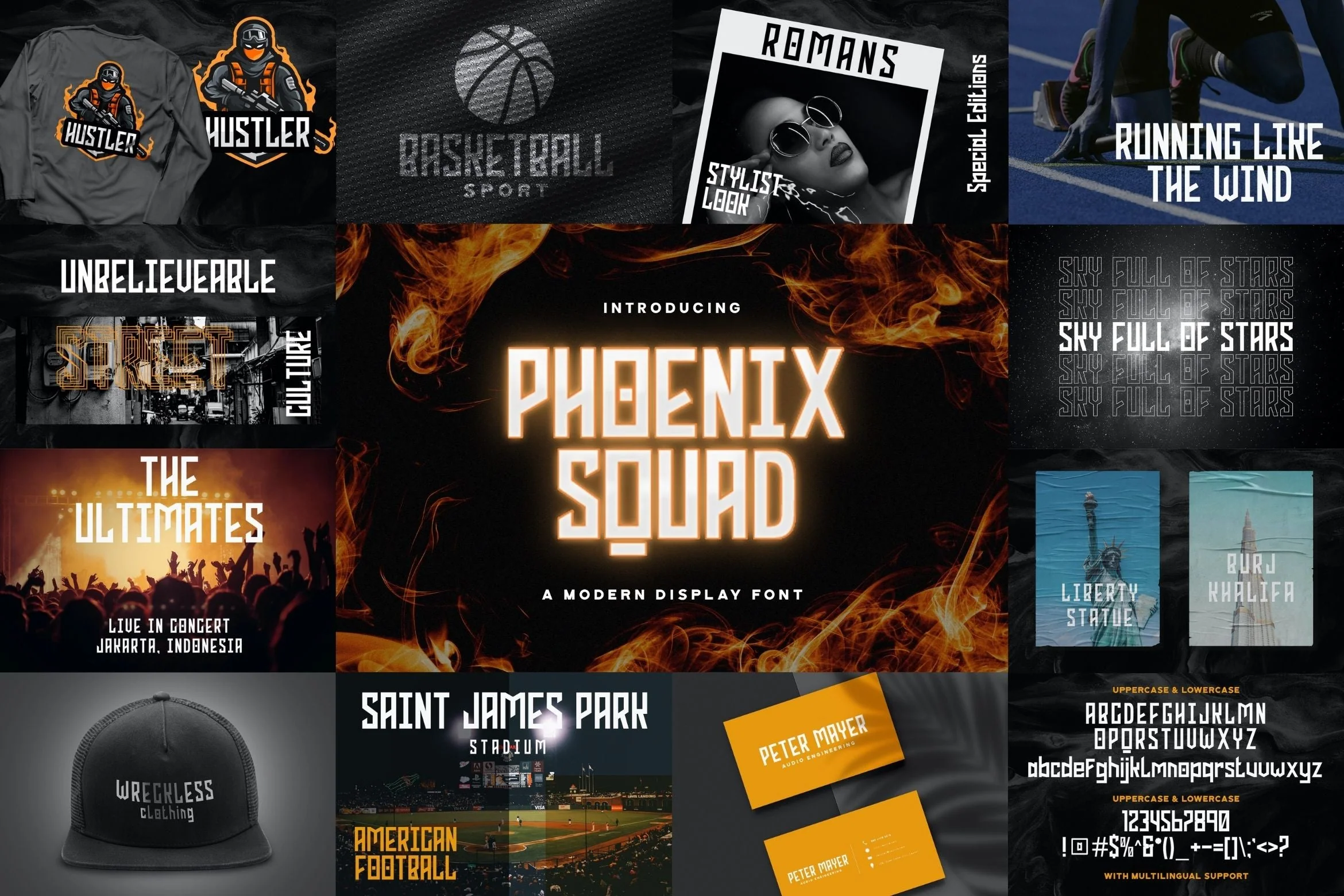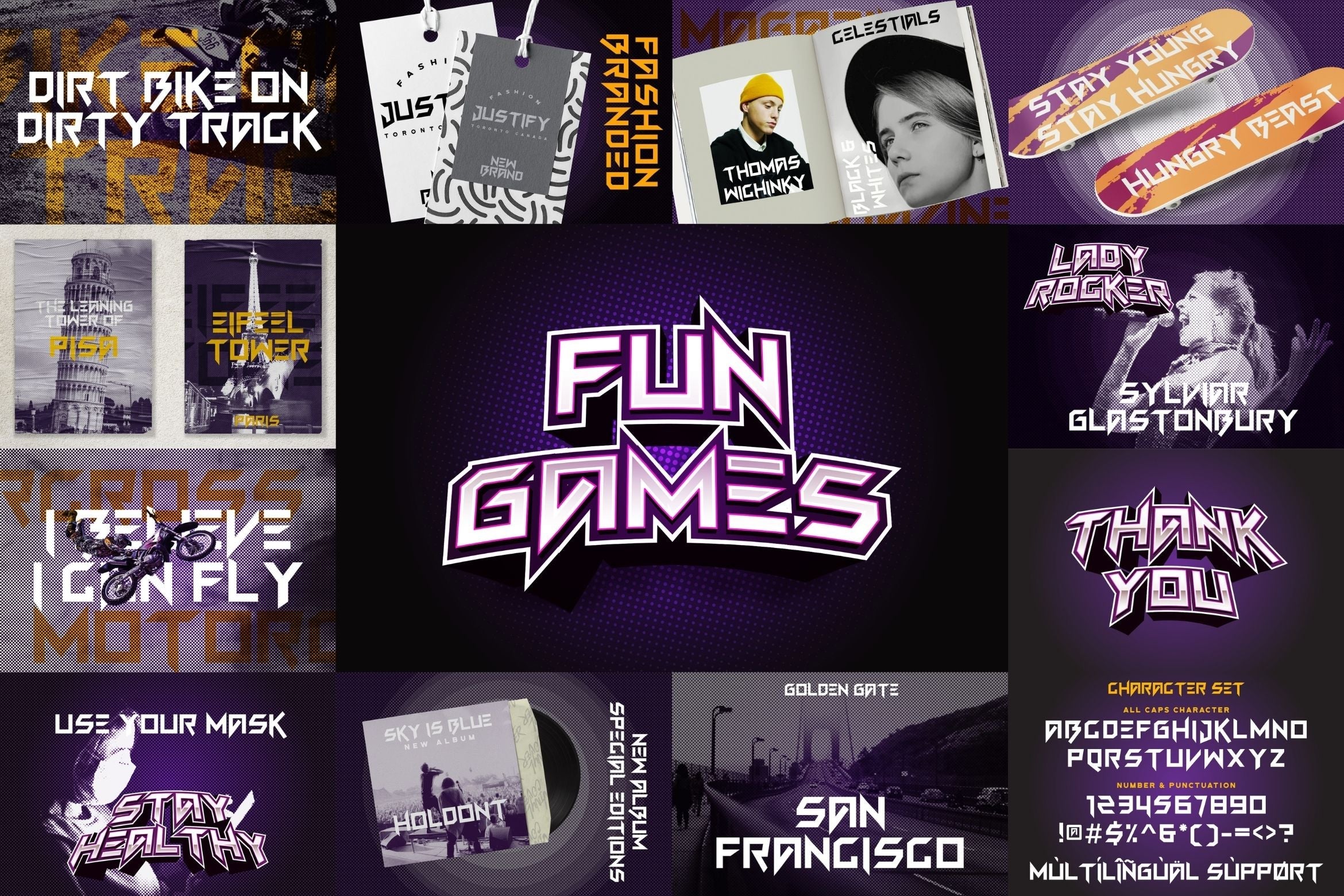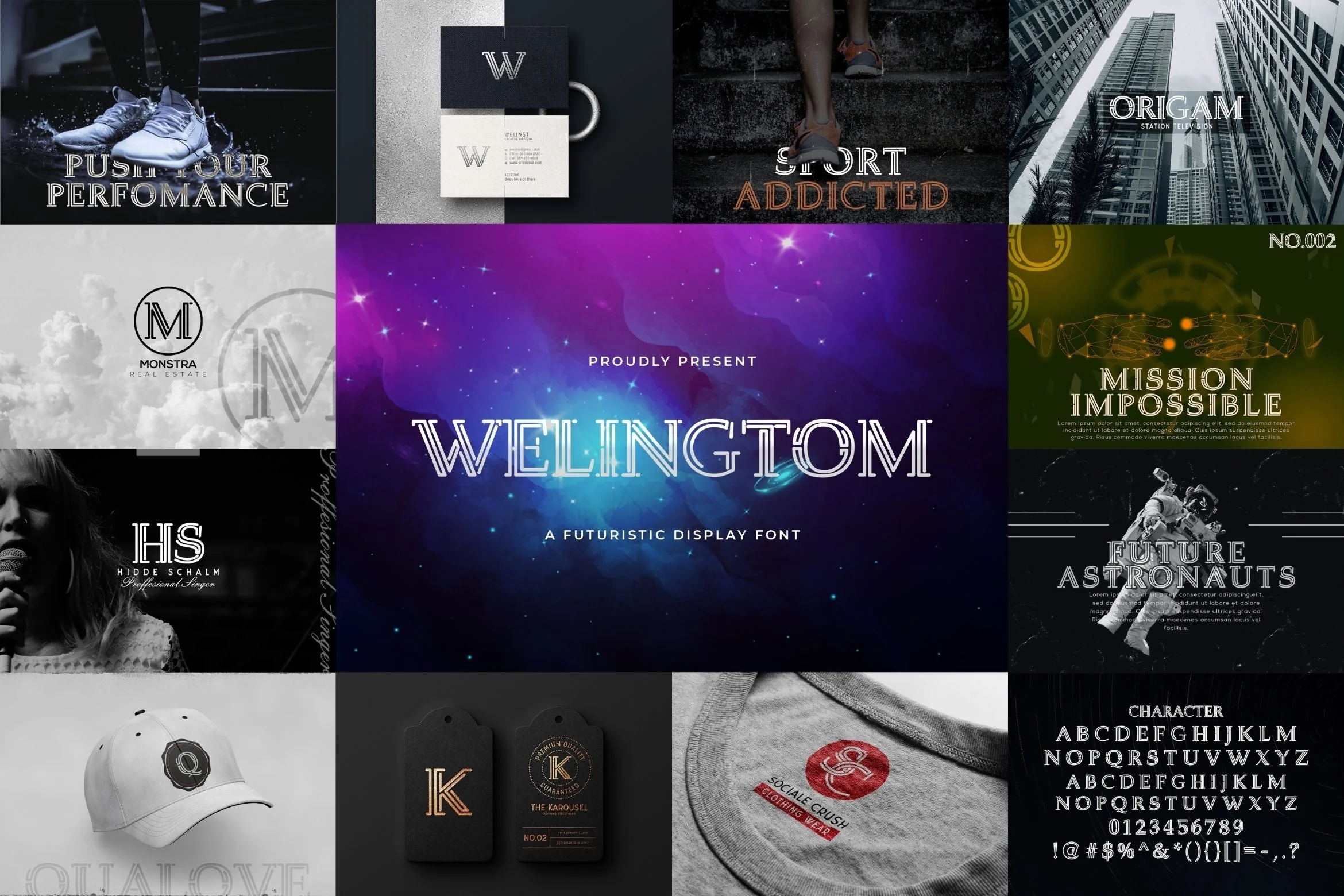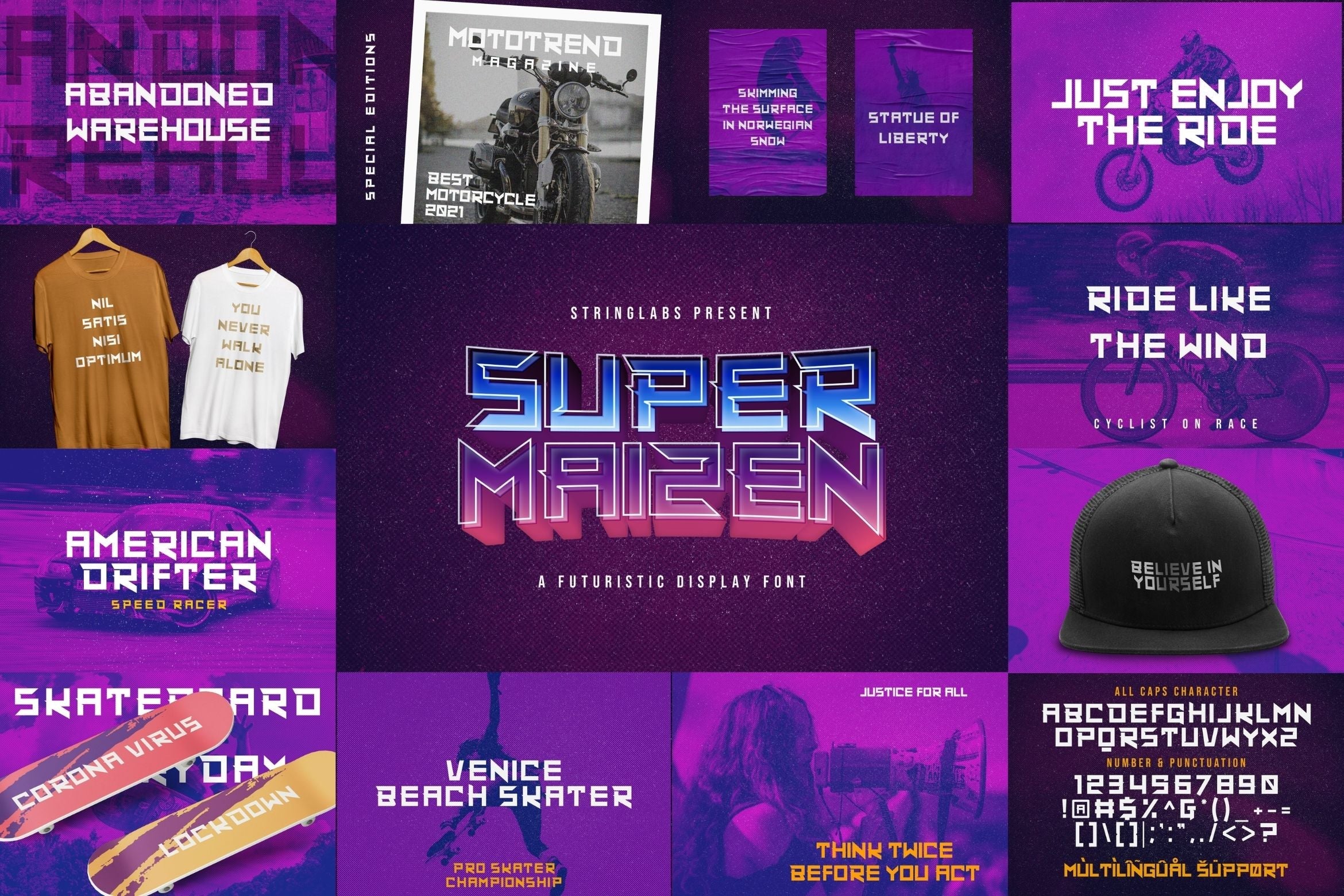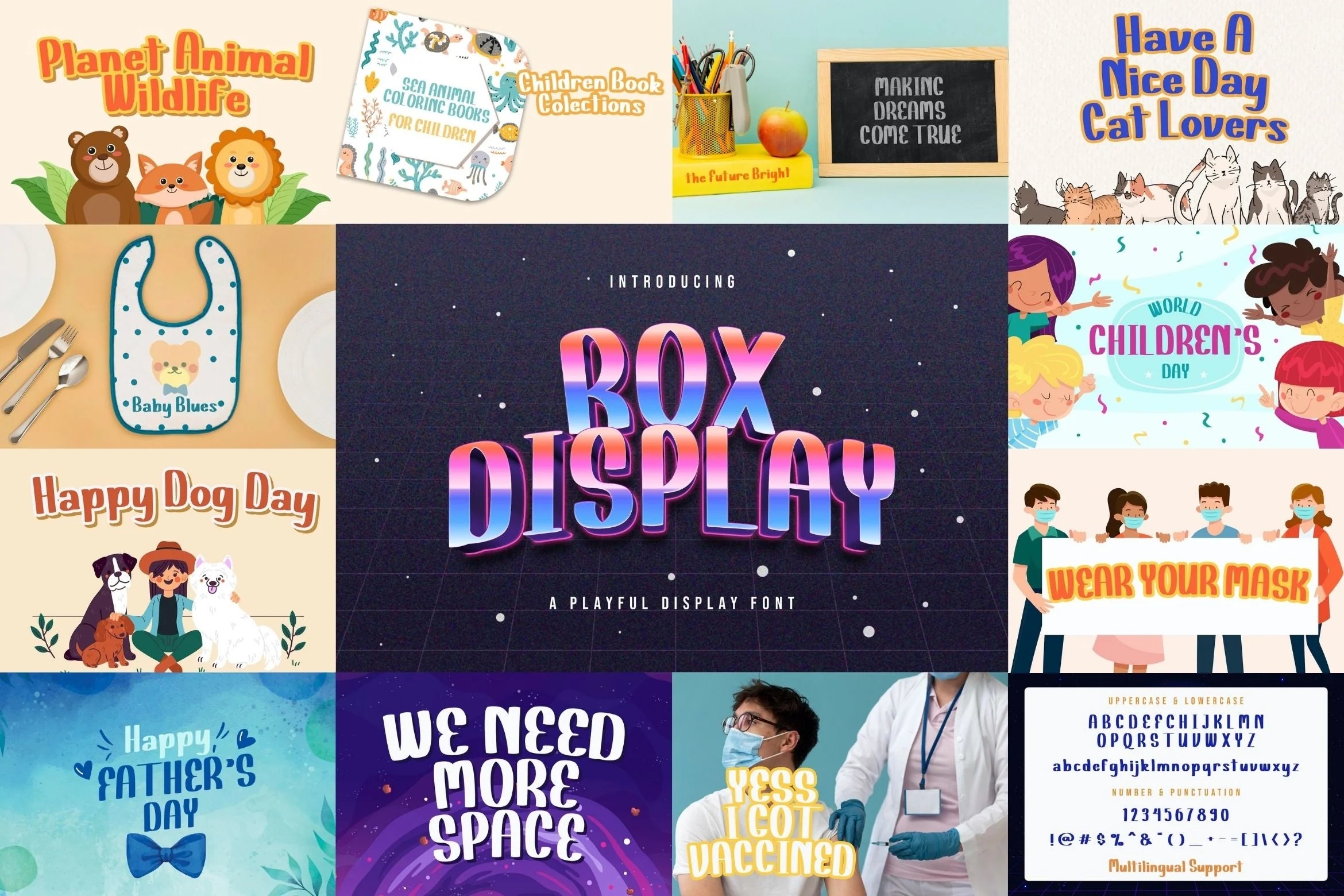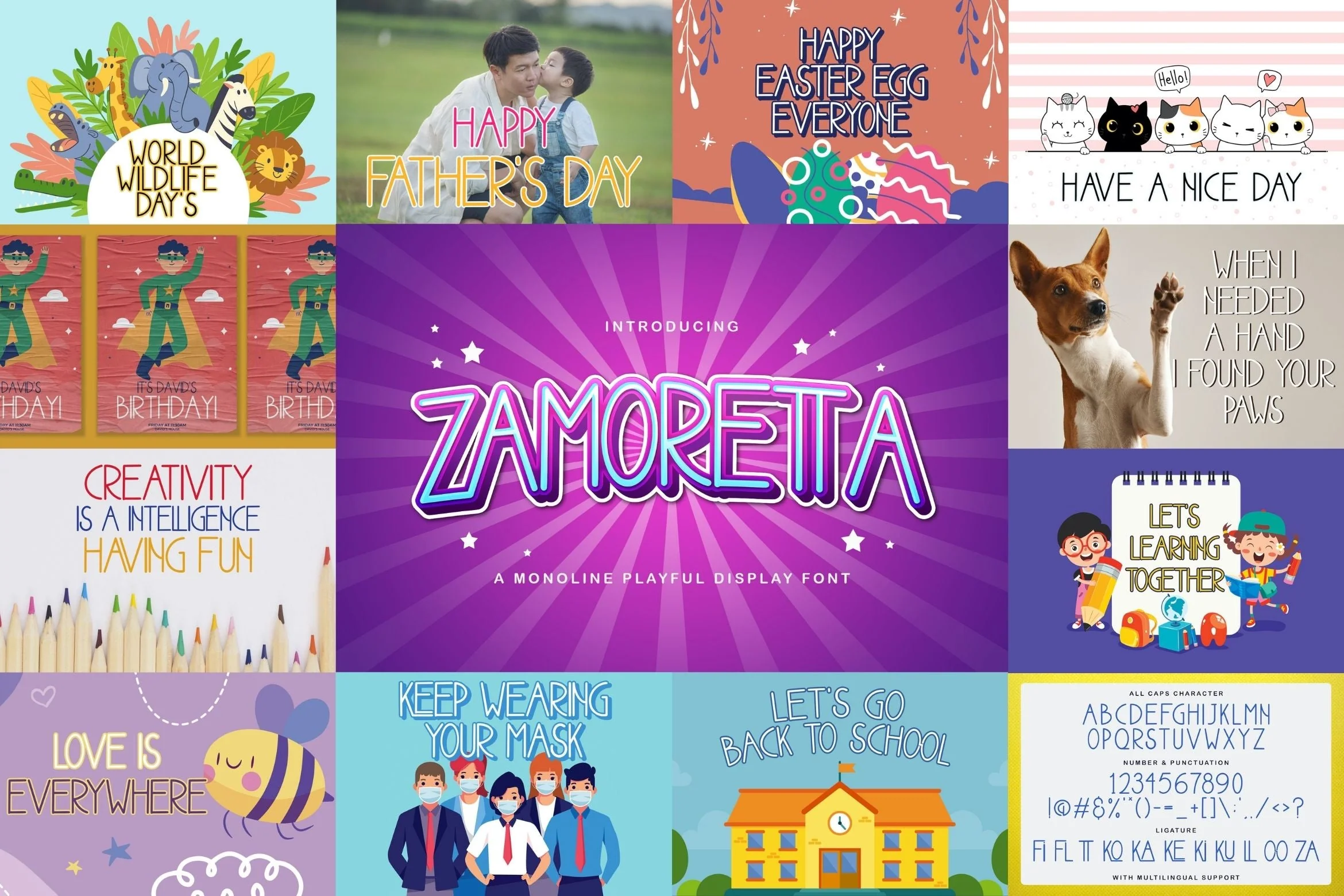
Futuristic Sans Font Bundle
Futuristic Sans Font Bundle is a authentic and futuristic display font. This font bundle contains 8 high quality decorative, bold, sporty, and techno sci-fi font style. Masterfully designed to become a true favorite, this font has the potential to bring each of your creative ideas to the highest level!
1. Zamoretta
2. Sportive
3. Rox Display
4. Super Maizen
5. Welingtom
6. Jodaguz
7. Fun Games
8. Phoenix Squad